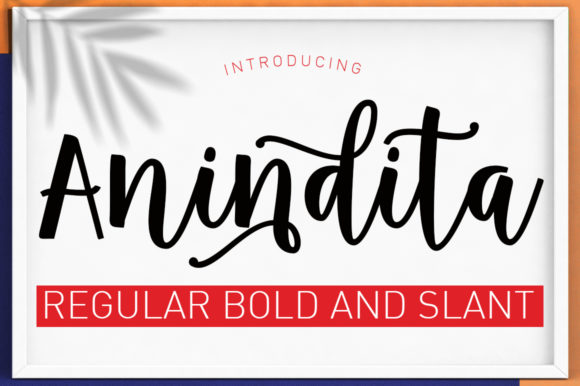
Anindita Font
Introducing Anindita Font, the enchanting script that will ignite your creativity and leave you spellbound with its captivating charm.
Anindita Font is not just another font; it's a work of art, a symphony of flowing lines and elegant curves that will dance across your designs with effortless grace. Its playful nature invites you to unleash your imagination and create designs that are as unique and enchanting as the font itself.
With Anindita Font, you'll have the power to weave words into enchanting tales, cast spells on your audience, and transport them to a world where beauty and imagination reign supreme. Whether you're crafting whimsical invitations, designing eye-catching logos, or adding a touch of magic to your social media posts, Anindita Font will be your trusty companion, guiding you through the realm of enchanting design.
Immerse yourself in the world of Anindita Font, where every letter is a stroke of magic and every word a captivating spell. Let the font's playful spirit guide your hand as you create designs that enchant and delight, leaving an everlasting impression on all who behold them.